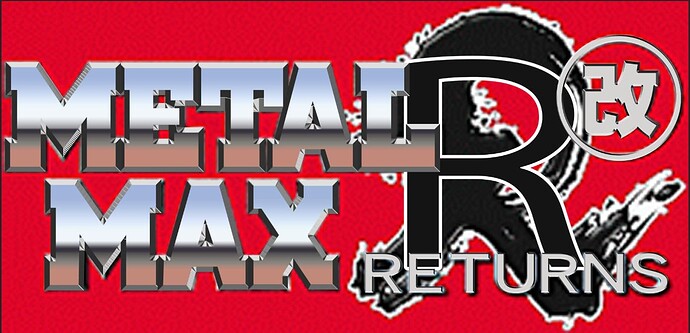
Can someone identify the giant “R” used in this logo:
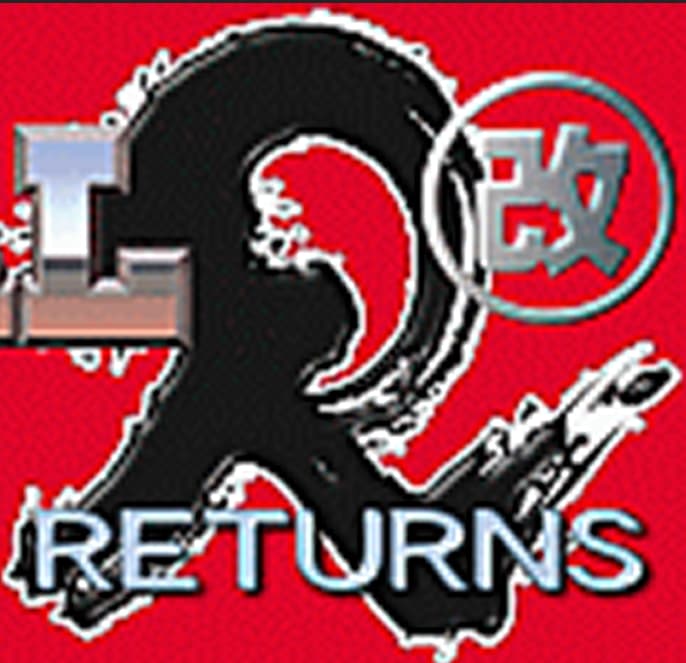
My W.I.P logo:
I doubt there’s any font involved. It looks more like something clumsily drawn with a brush.
I agree. It’s easy to take a brush and a little gouache black, create the letter you want, Then scan it and use a vector app (like Adobe Illustrator) to do the rest. Voila!—there’s your letter!